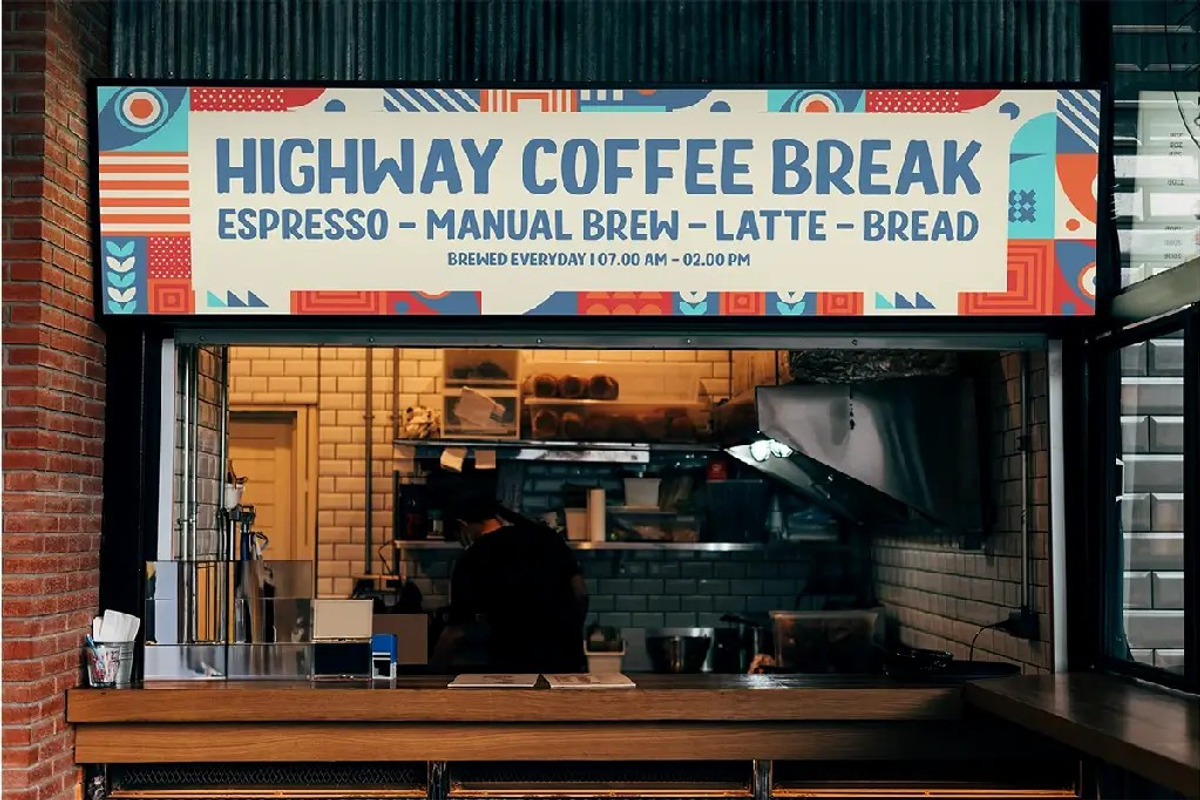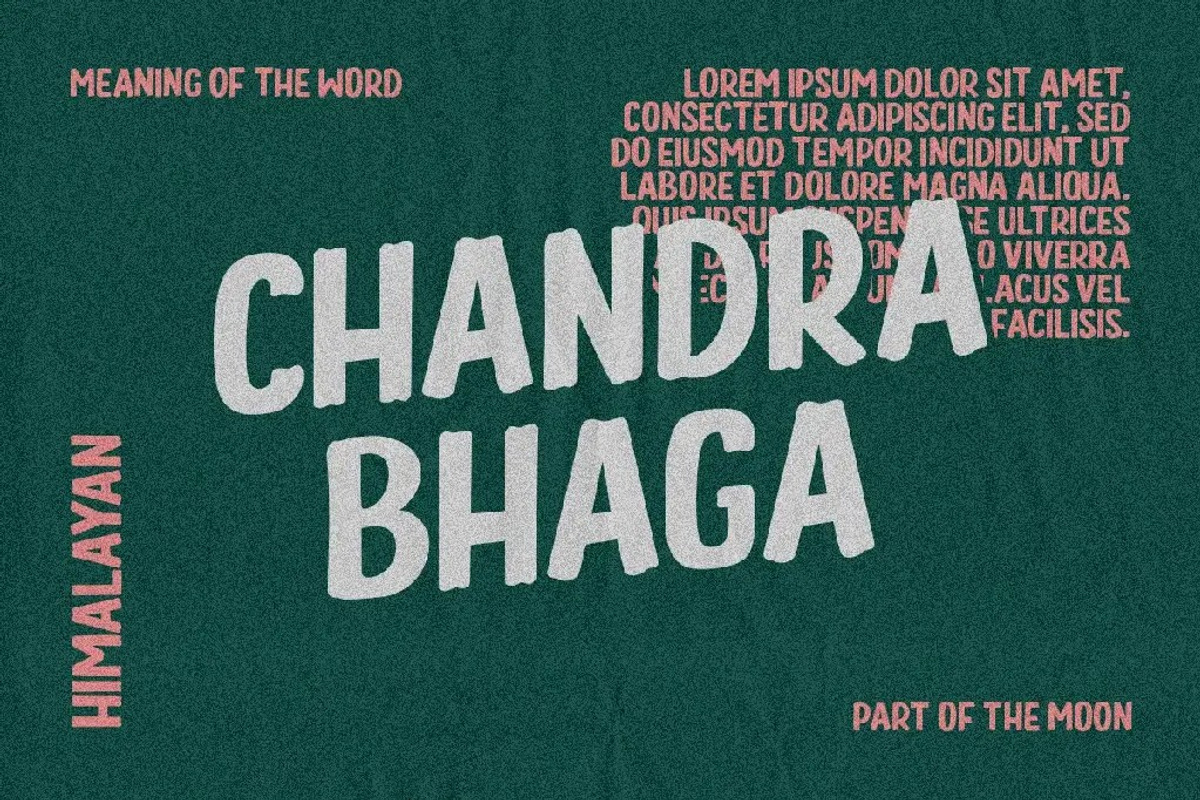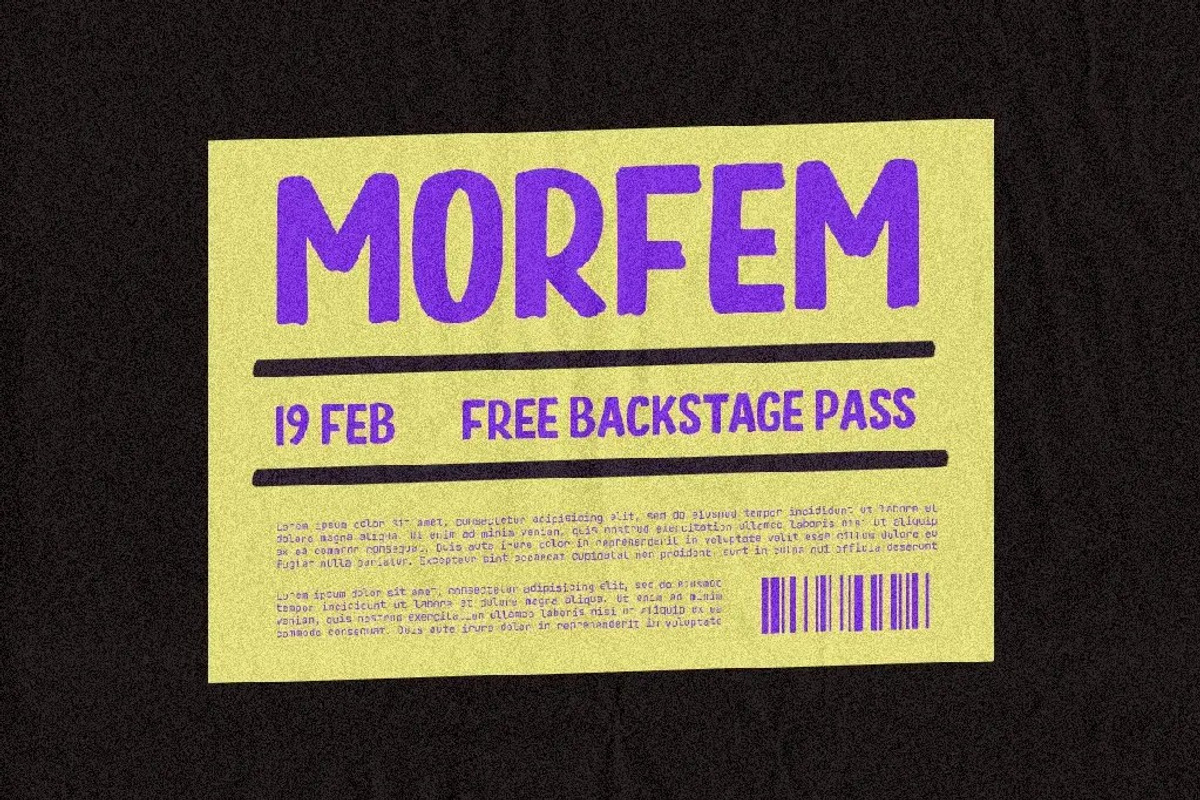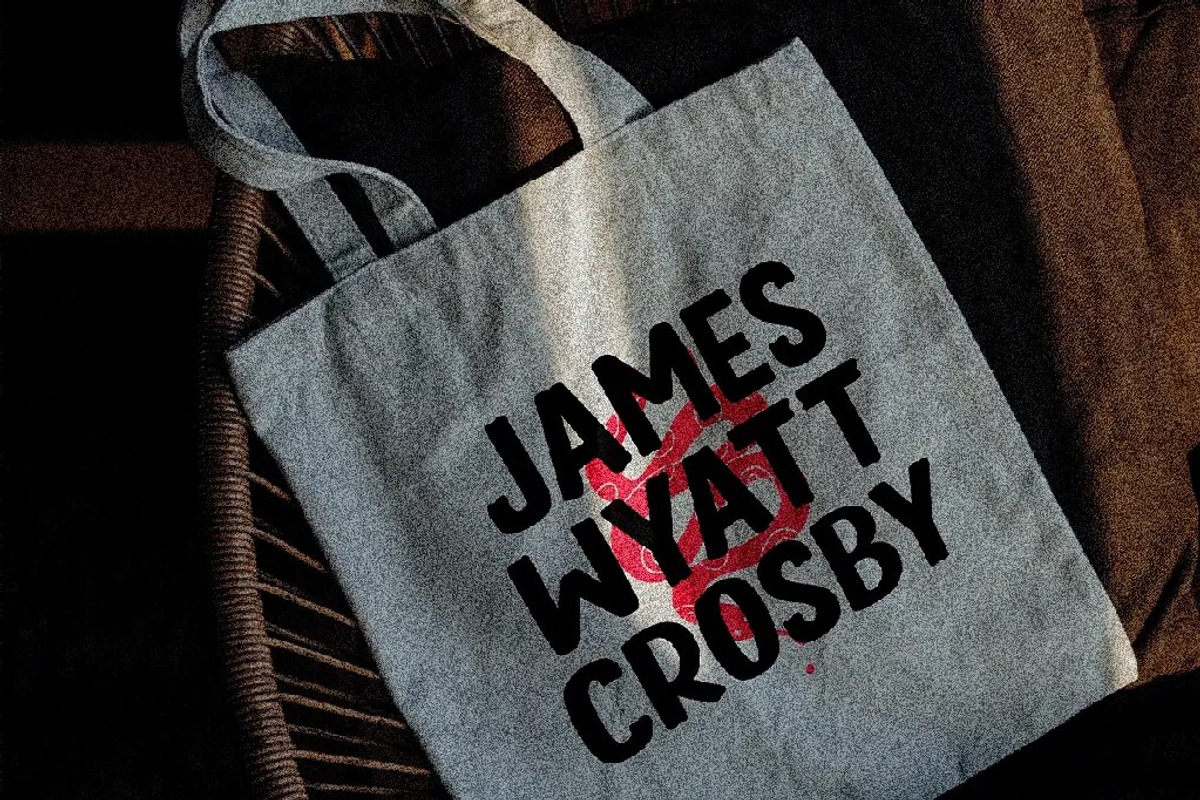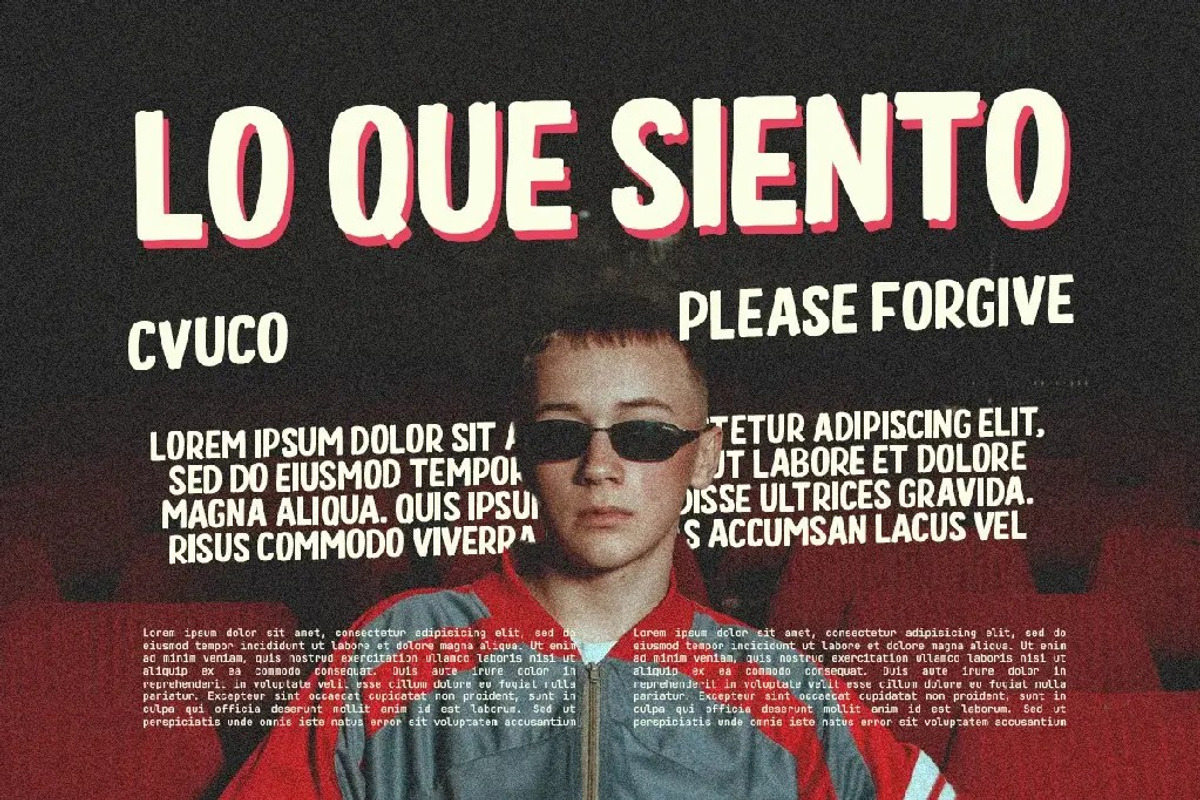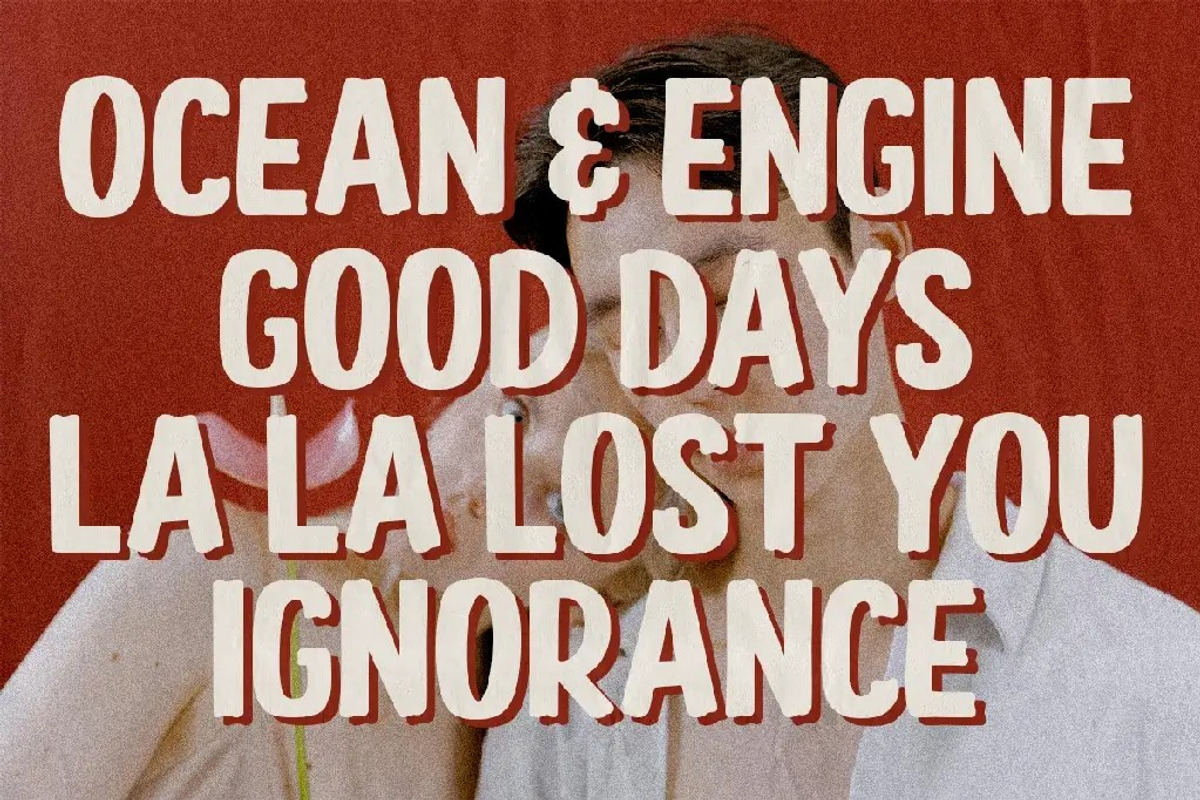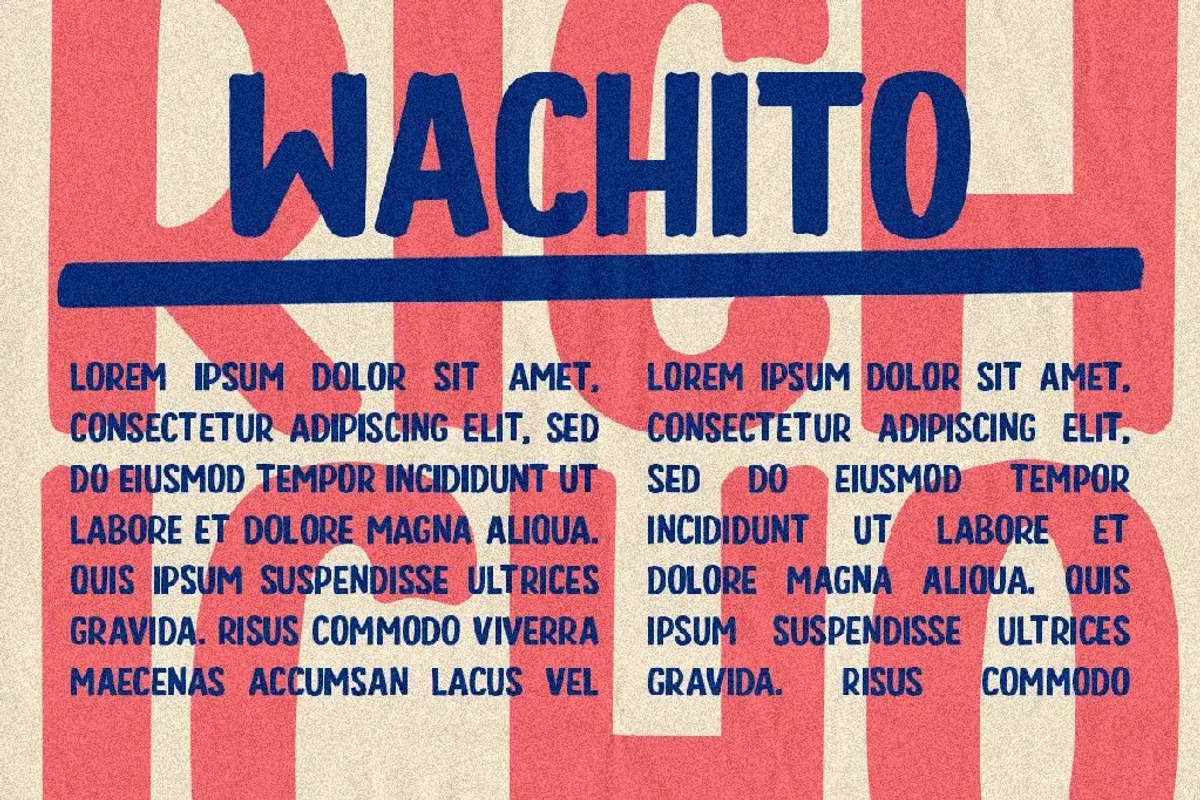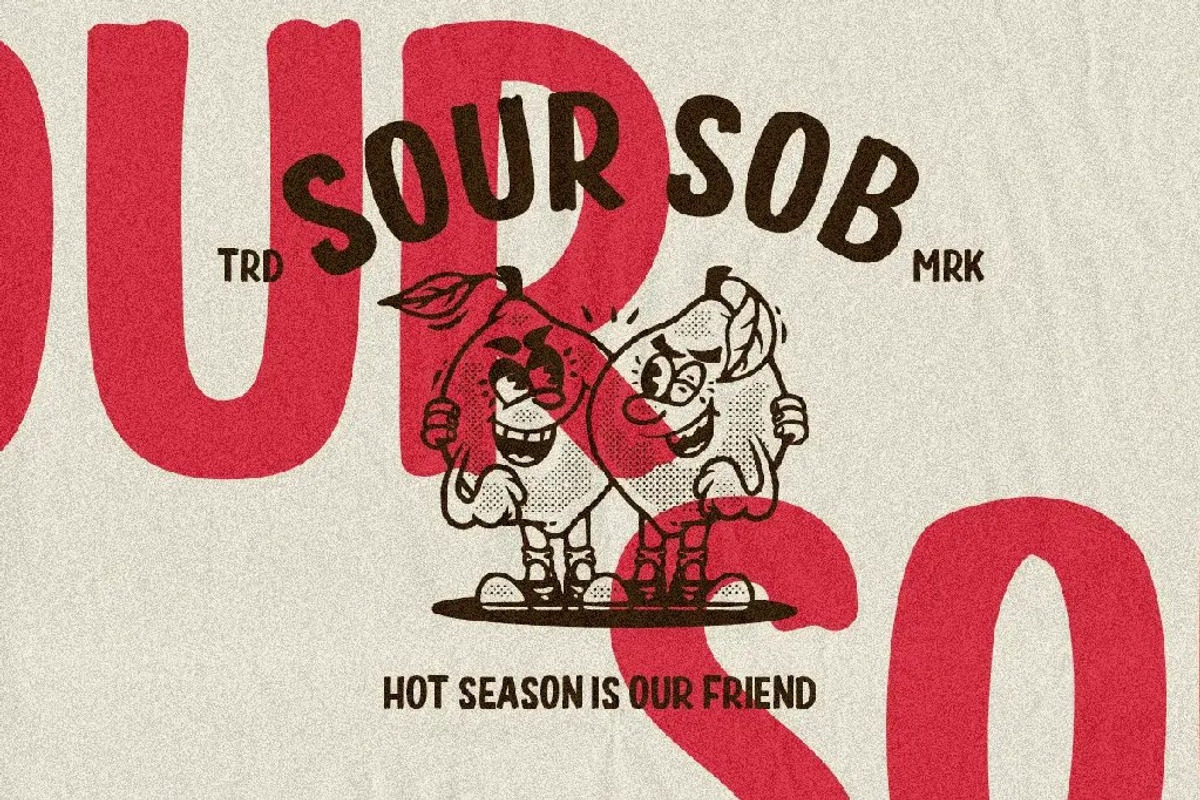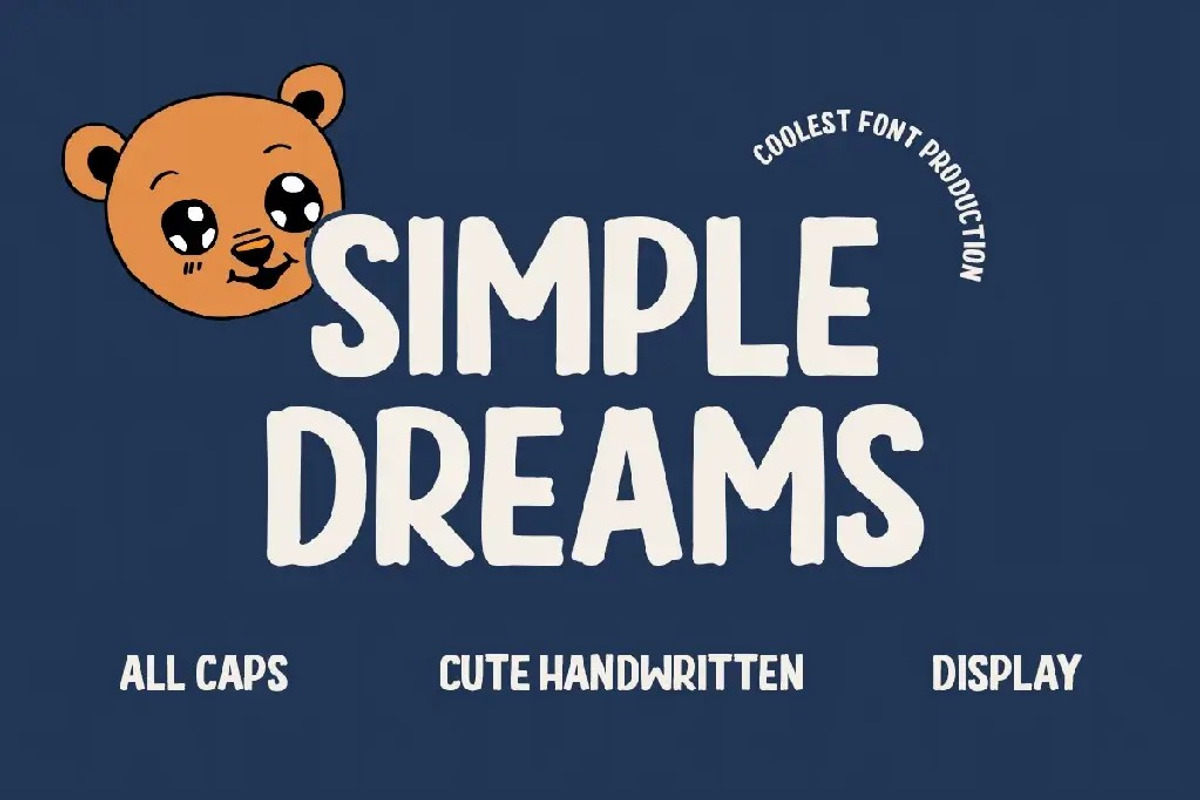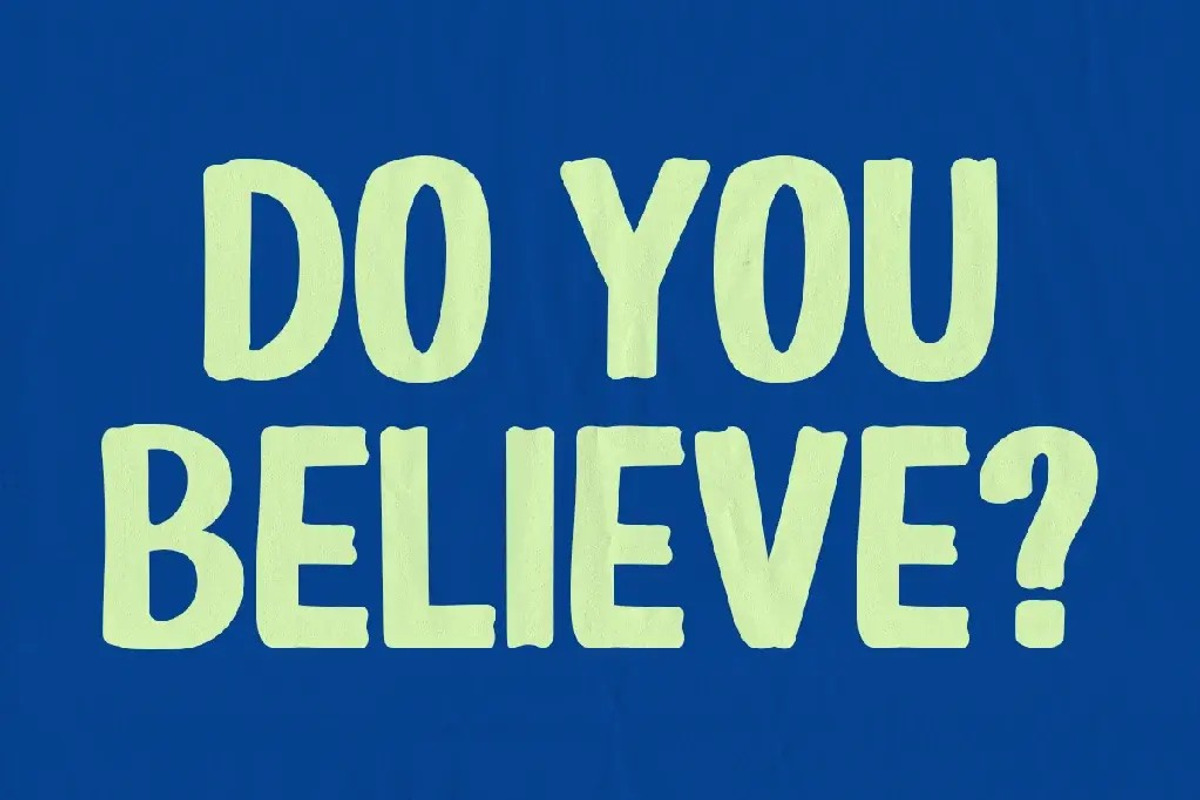
Simple Dream – Cute Handwritten Font
Bring a touch of warmth and playfulness to your designs with Simple Dream, a charming handwritten font that blends simplicity with elegance. Designed to capture a natural, smooth handwriting style, this font is perfect for adding a personal and cozy feel to any project.
Why Choose Simple Dream?
✅ Adorable & Playful: A cute, friendly typeface that radiates positivity and joy.
✅ Smooth Handwriting Style: Designed with natural, flowing strokes for an effortless handwritten look.
✅ Versatile for Any Project: Ideal for logos, branding, social media graphics, invitations, product packaging, greeting cards, and more!
✅ High Readability: Perfectly balanced letters that ensure clarity in both headlines and body text.
✅ Multilingual Support: Includes a variety of characters to support multiple languages.
Whether you're working on a cute branding project, a heartwarming greeting card, or a stylish social media post, Simple Dream is your go-to font for a fun and natural handwritten look.